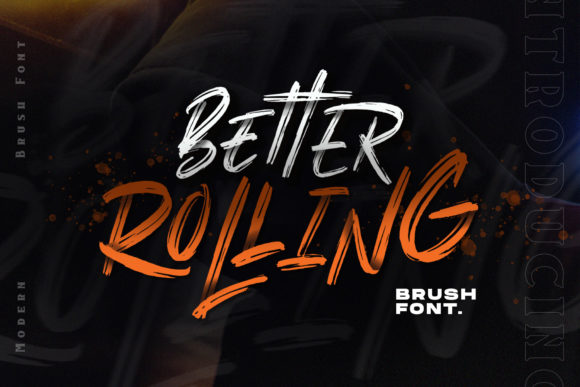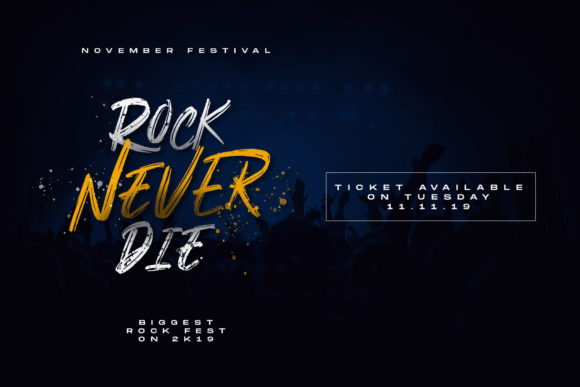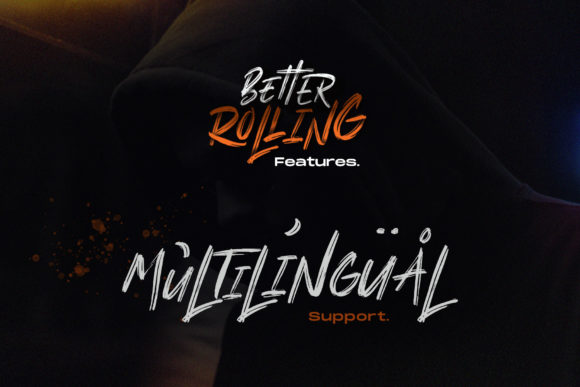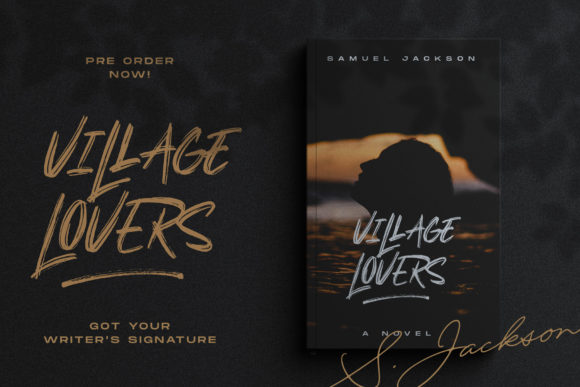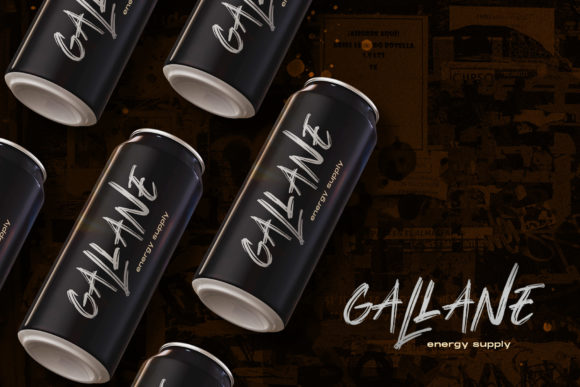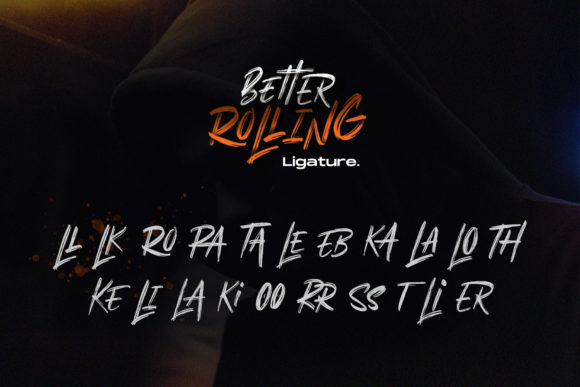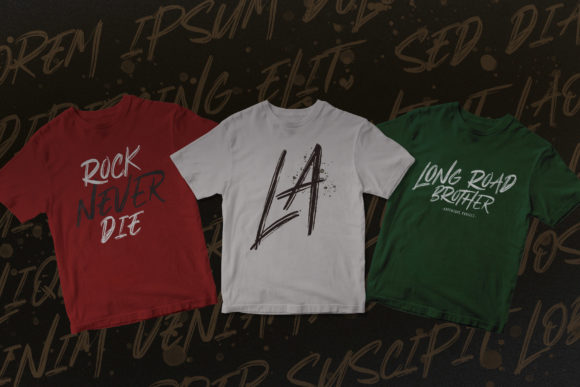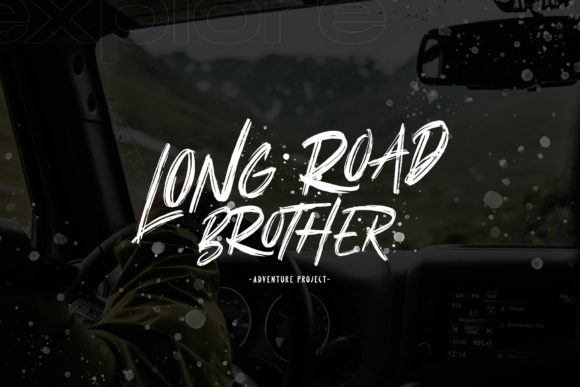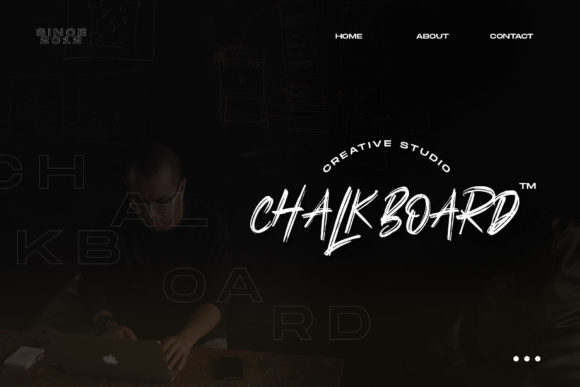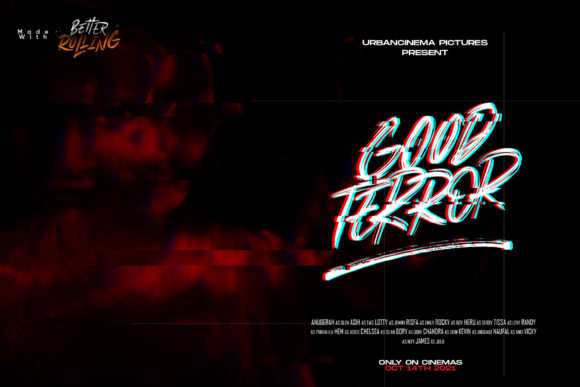
Better Rolling Font
About Better Rolling Font
Better Rolling is a detailed and bold script font painted with a bold dry brush. This stunning font will add a strong and distinct vibe to any design!